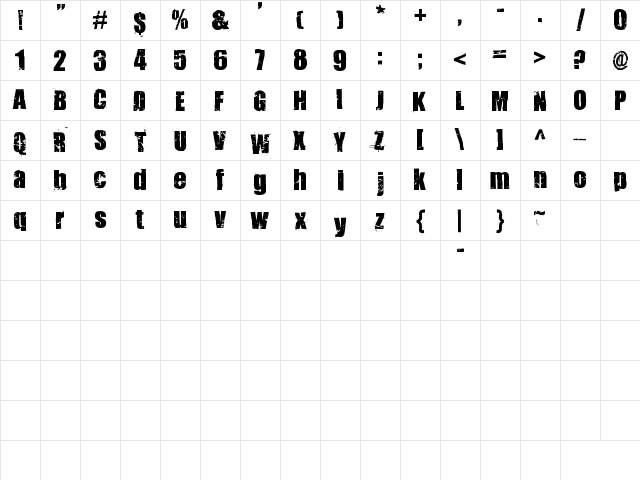
321impact Regular
321impact Family
Design Context for 321impact
321impact brings high-energy athletic personality to the page - its confident, muscular forms are built for impact.
Pro Tip: Use 321impact in all-caps headlines where its athletic energy can fully express itself. Pair with a solid, simple sans for supporting text.